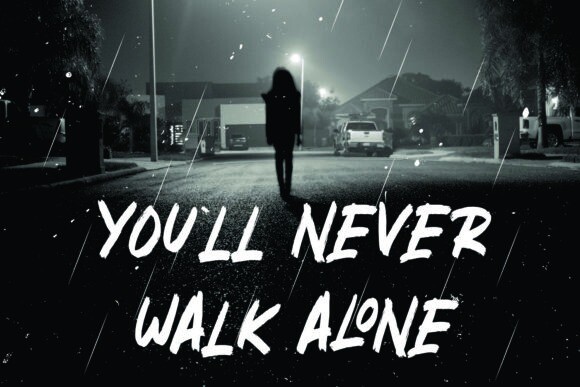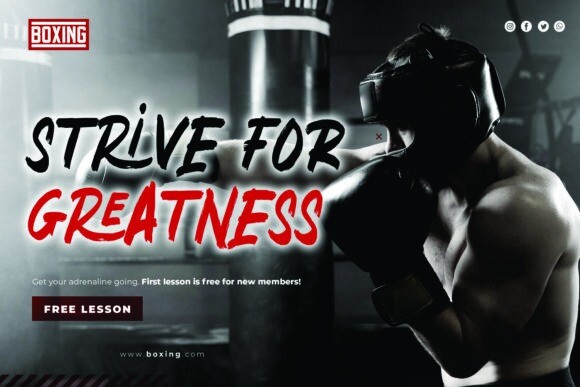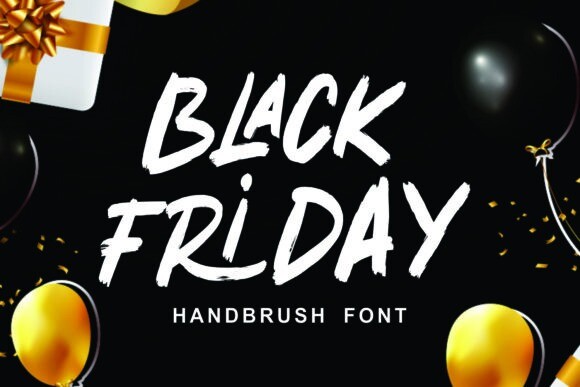
Black Friday Brush Font
Black Friday Brush Font is a bold and thick lettered brushed display font. No matter the topic, this font will be an incredible asset to your fonts’ library, as it has the potential to elevate any creation. Black Friday is PUA encoded which means you can access all of the glyphs and swashes with ease!